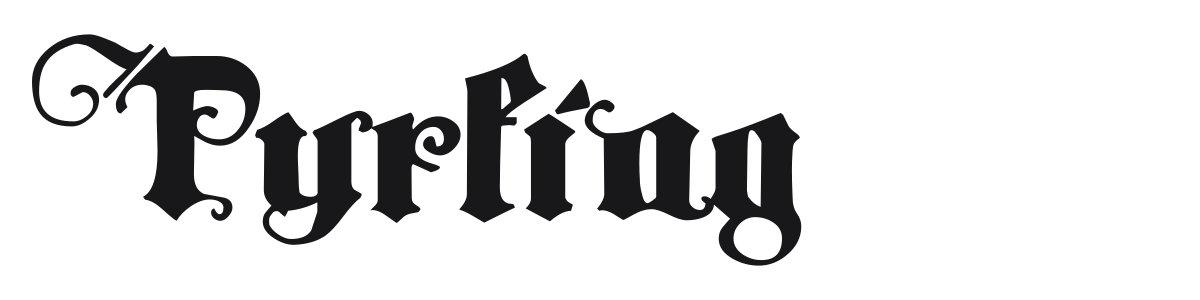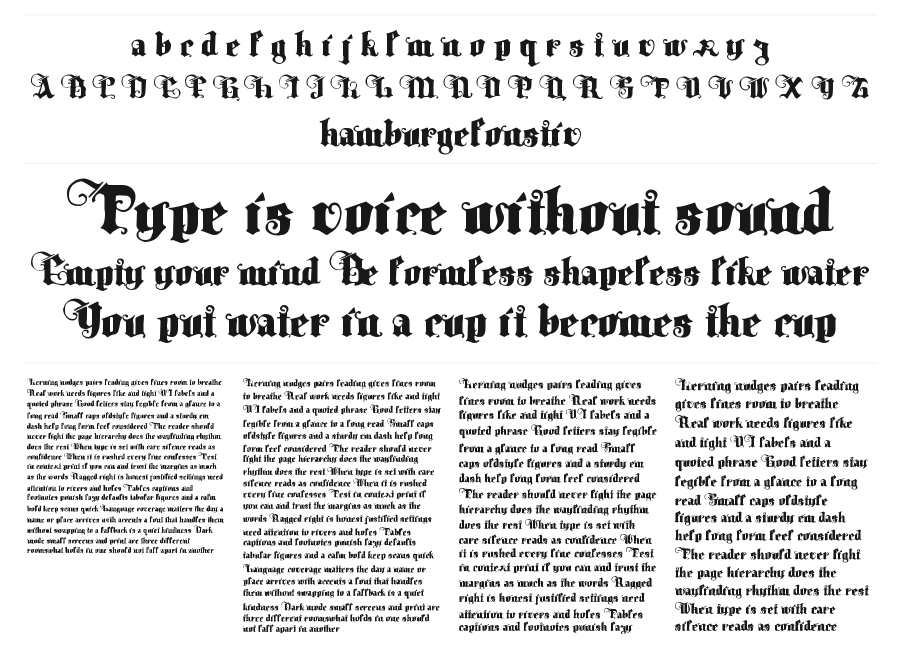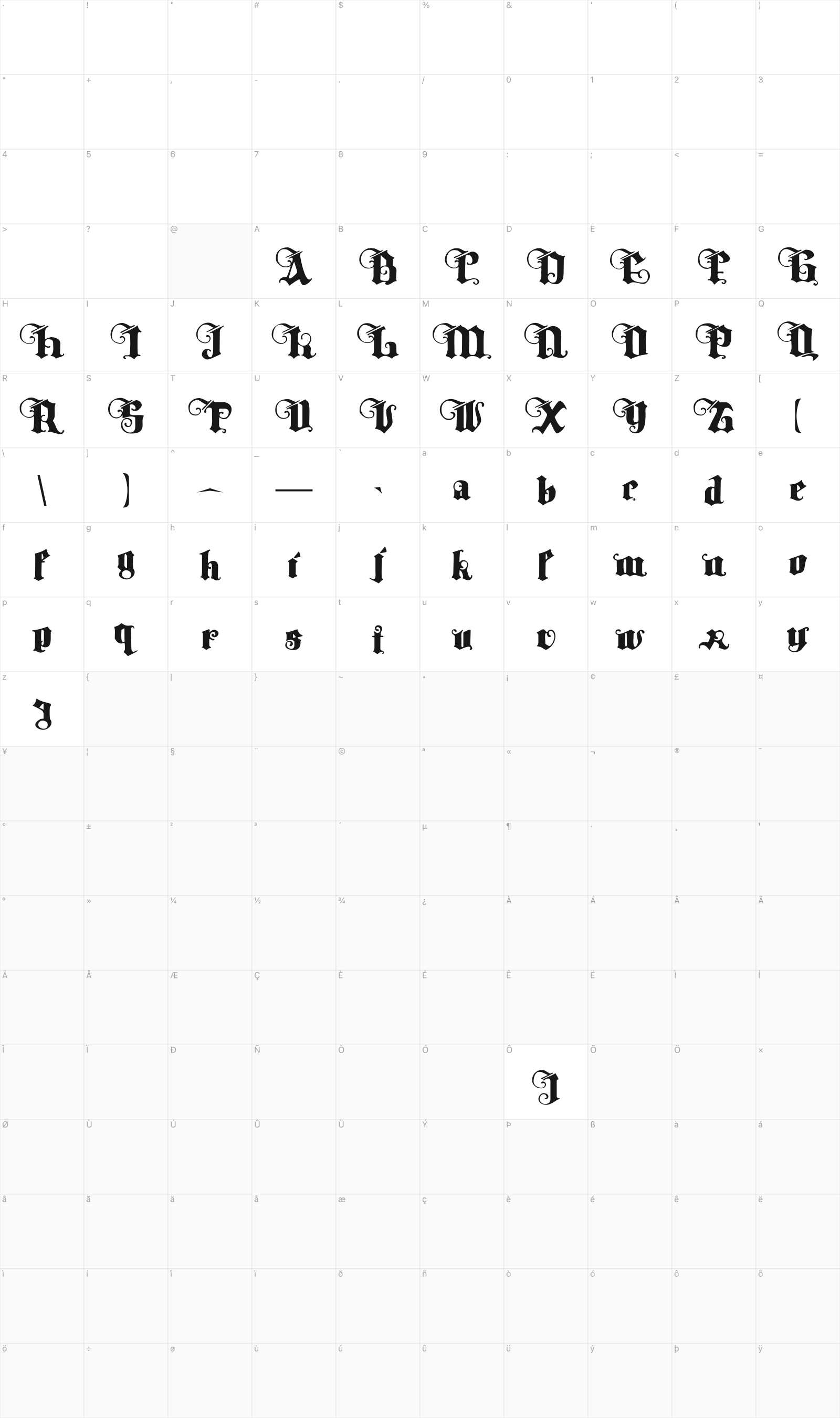
Tyrfing
Tyrfing is a heavy Gothic blackletter drawn with bold, angular strokes and elaborate decorative flourishes at the terminals. Named after the cursed Norse sword of legend, it carries a distinctly dark, medieval weight that suits fantasy, metal, and mythological contexts. Best at large sizes where its intricate details can be read clearly.